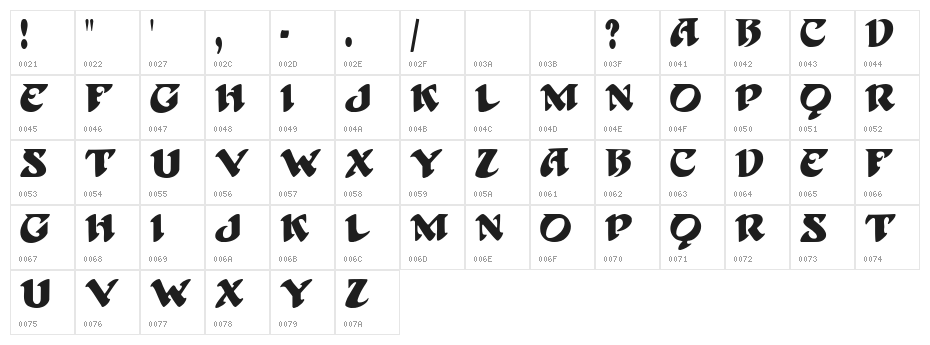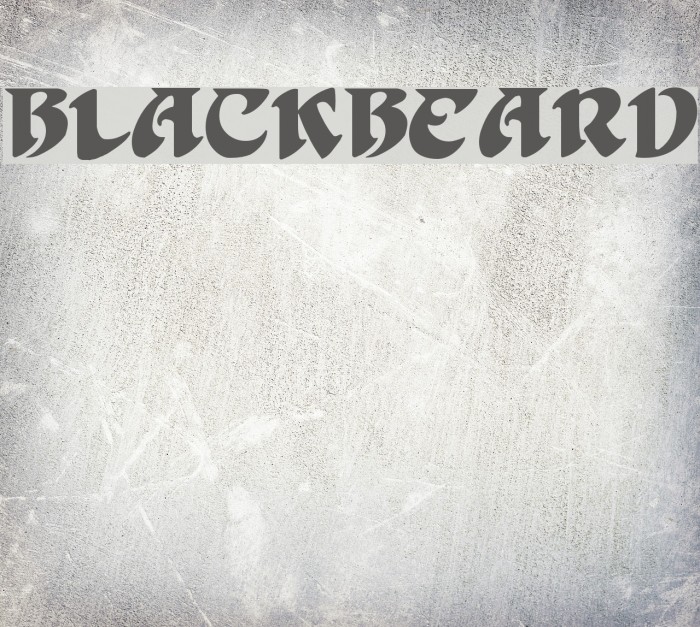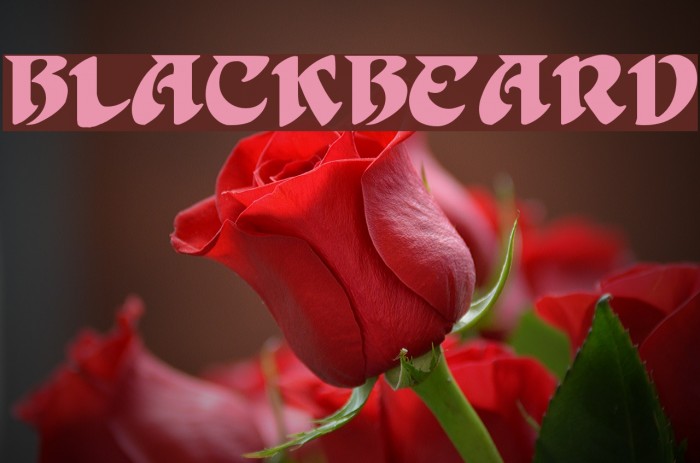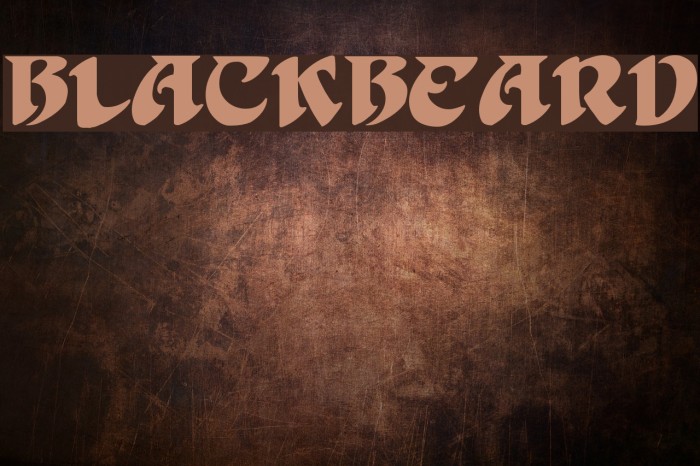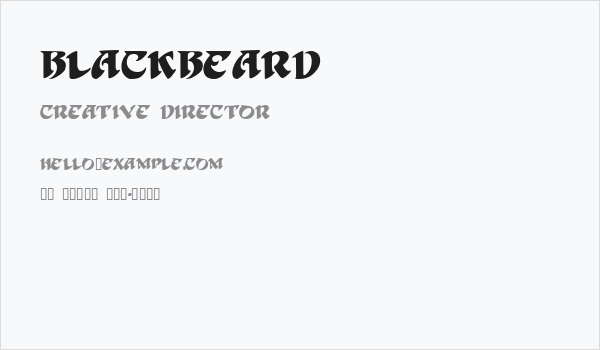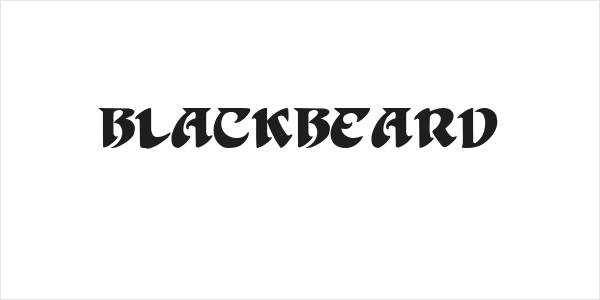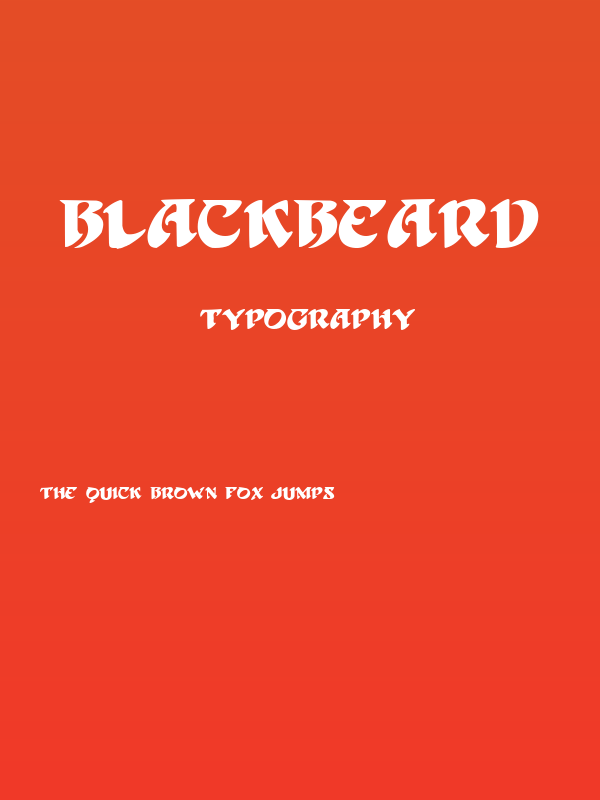
BlackBeard Font
BlackBeard Description
This font features a bold and dramatic style, reminiscent of traditional Blackletter typefaces. The characters are sharply defined with thick strokes and pointed serifs, giving it a strong and authoritative presence. The uppercase letters are particularly striking, with intricate details and a sense of historical elegance. The lowercase letters maintain the same boldness, ensuring consistency throughout the text. The numbers and special characters are designed to match the overall aesthetic, making this font suitable for projects that require a touch of medieval or gothic flair.
Overall StyleVintage
Use CaseLogos, Headlines, Decorative text
Proposed ProjectsIdeal for use in branding, posters, book covers, and any project seeking a historical or gothic theme.